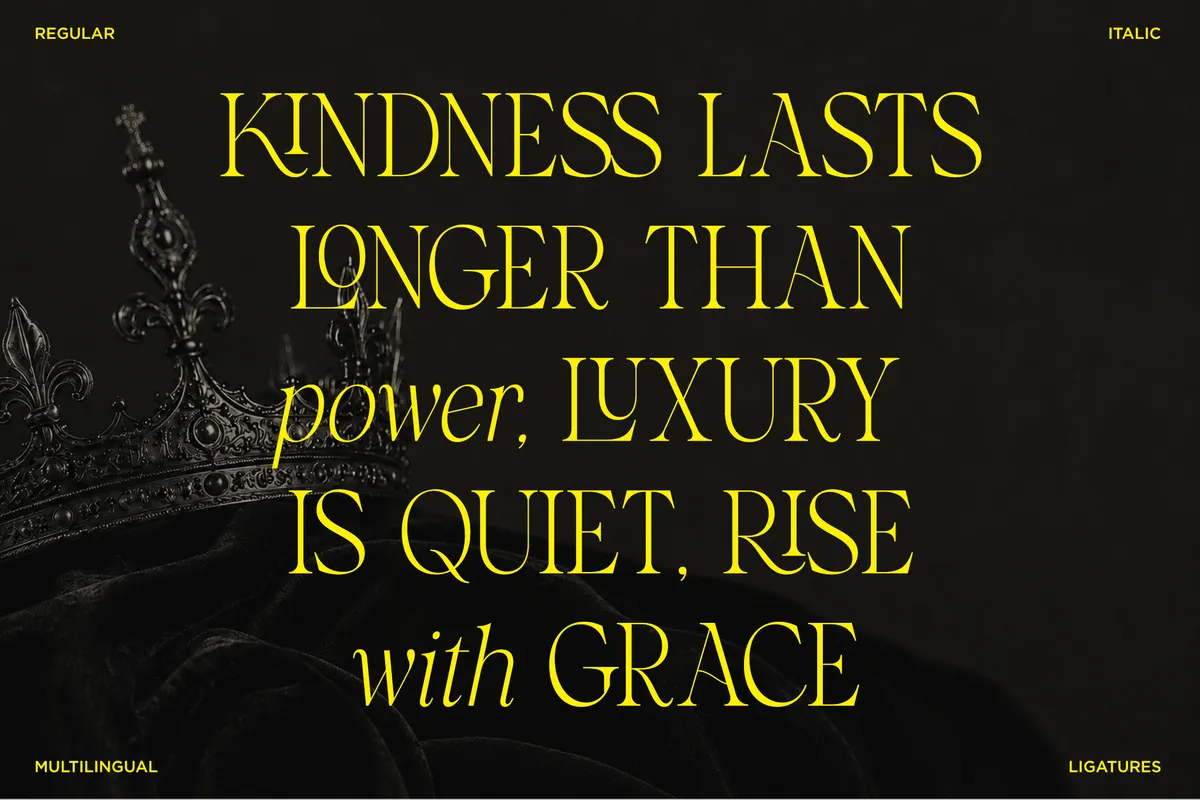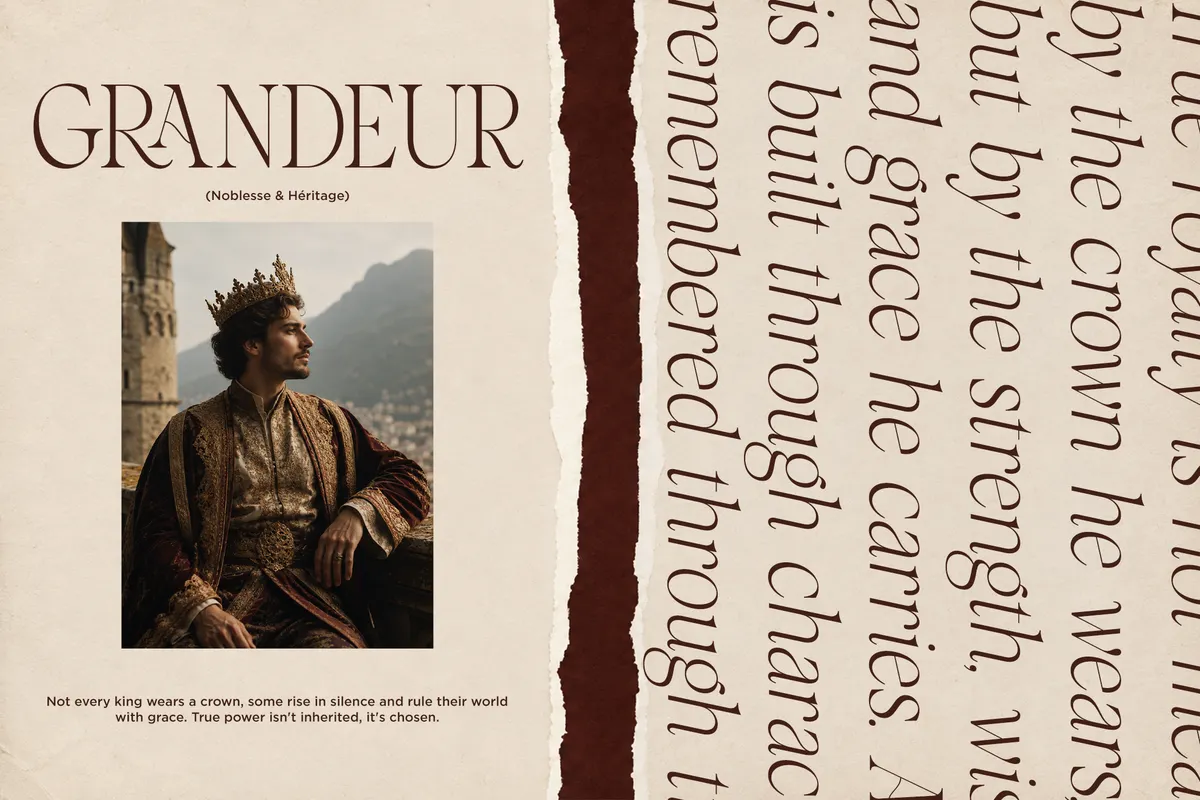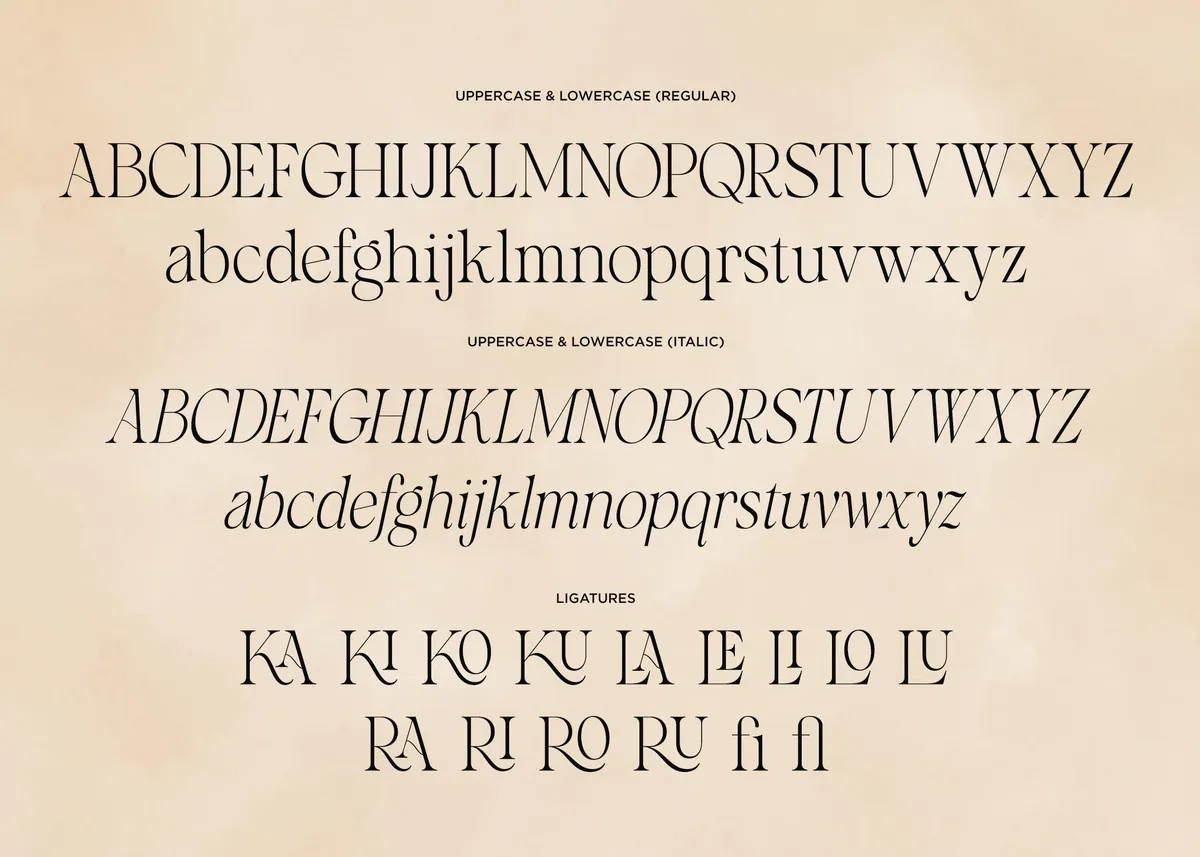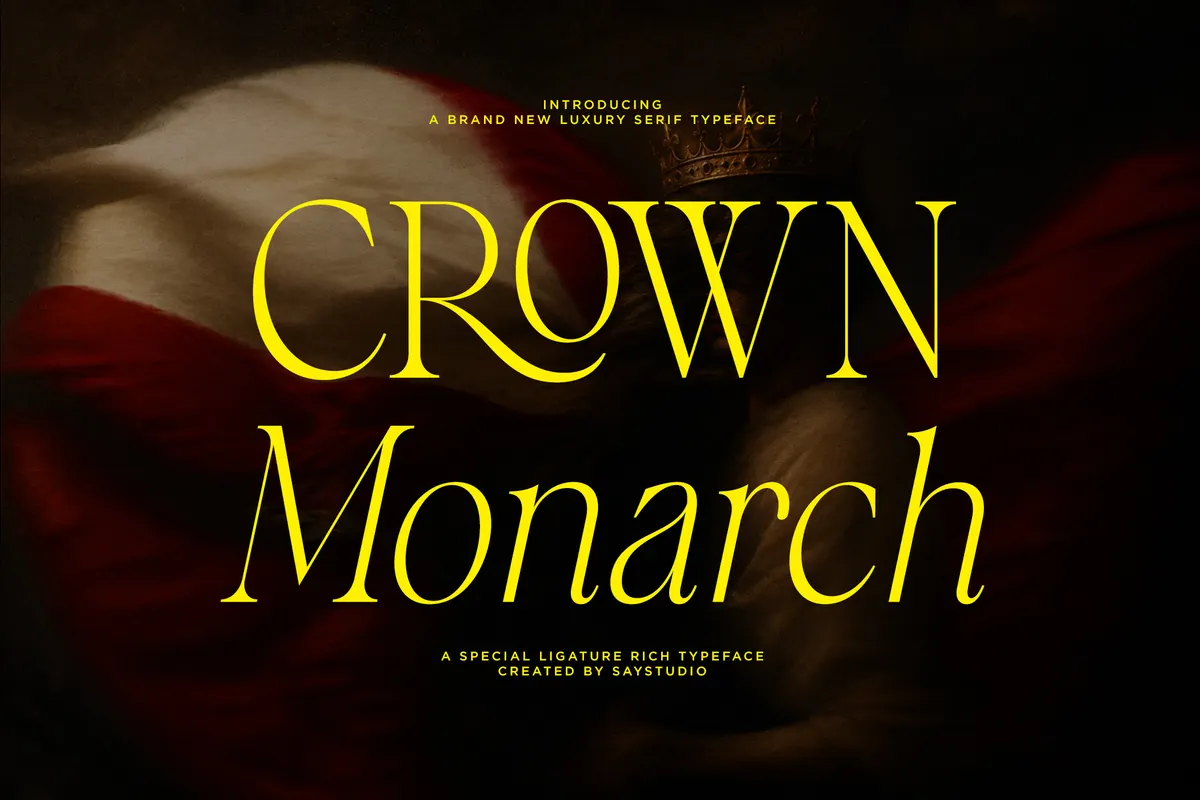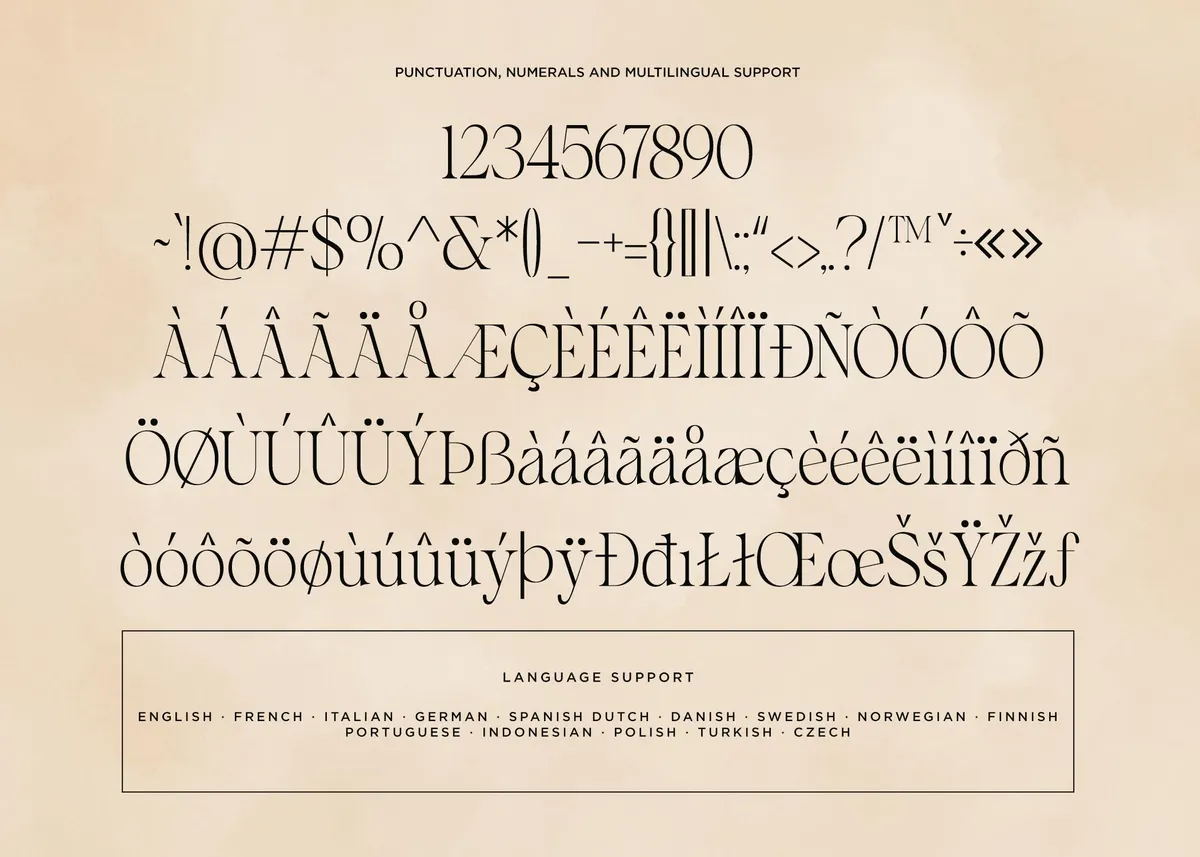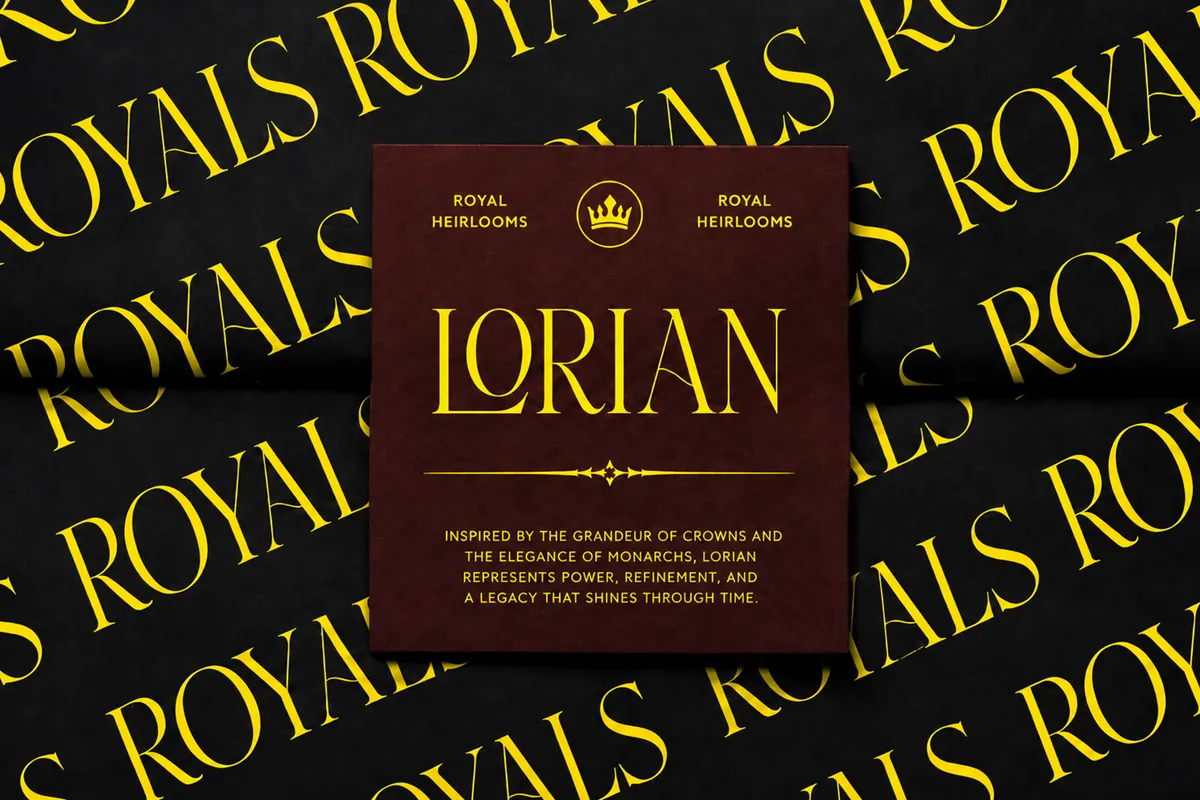
Crown Monarch - Luxury Serif Display Font
Crown Monarch builds tall, high-contrast serif capitals with a regal, editorial edge, closer to a fashion-magazine masthead than a quiet luxury serif. Regular and true italic make up the pair, the italic redrawn rather than simply slanted, so both styles sit together on the same line without a mismatch. Thirteen discretionary ligatures swap in connected forms for a wide run of capital pairs plus fi and fl, all reachable through the OpenType panel.
Use it for fashion editorials, luxury branding, perfume and beauty packaging, wedding stationery, and premium logo work.
- Uppercase & lowercase;
- Numerals, punctuation & symbols;
- Regular and true italic styles;
- 15 ligatures: connected capital pairs plus fi and fl;
- Superscript figures;
- Language support: English, French, Italian, German, Spanish, Dutch, Danish, Swedish, Norwegian, Finnish, and Portuguese